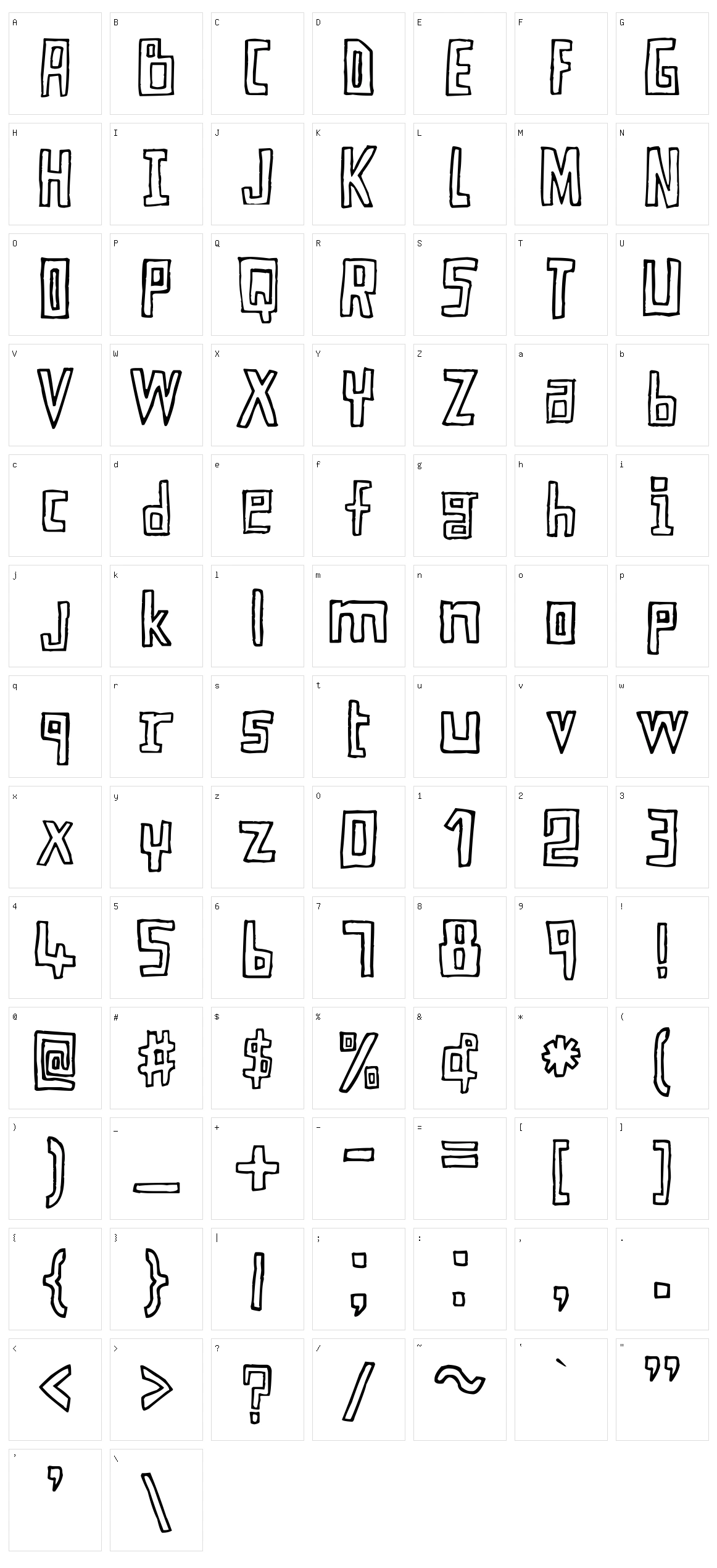
The free font My Eyes Are Twice is carefully designed by Mkt, showcasing a thoughtful balance of creativity and usability and falls under the Cartoon font style. When you download the ZIP file, it contains only 22.03 KB of font files, making it lightweight and quick to download. Please review the license details below to understand permitted usage and distribution rights. If license information is not available, we recommend using this font for personal projects only or contacting the author directly for commercial usage permissions.